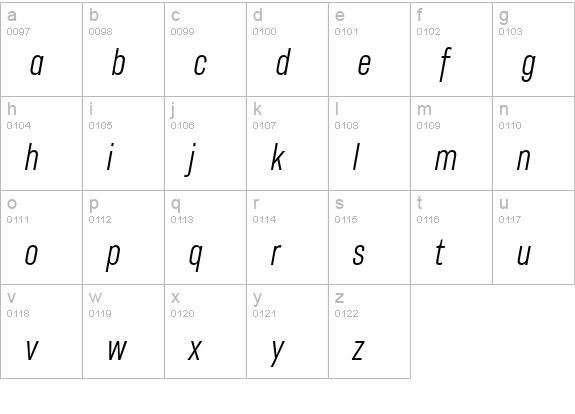
Americane Condensed Light Italic is a refined, elegant, condensed-width, italic variant in the Americane typeface family \xE2\x80\x94 well suited to elegant body text, refined sub-headings, and luxury branding.
Americane Condensed Light Italic font is a modern and sleek typeface that exudes elegance and sophistication. Its slender and italicized design adds a touch of flair to any project, making it perfect for use in branding, advertising, and editorial design. The airy spacing and delicate strokes of Americane Condensed Light Italic create a sense of refinement and style. What's even better is that Americane Condensed Light Italic font is available for free download at FontsMarket.com. This means you can easily access this stunning typeface to elevate your designs without breaking the bank. Whether you're working on a website, a poster, or a logo, Americane Condensed Light Italic font will bring a touch of class and professionalism to your projects. Download it now and take your design to the next level!